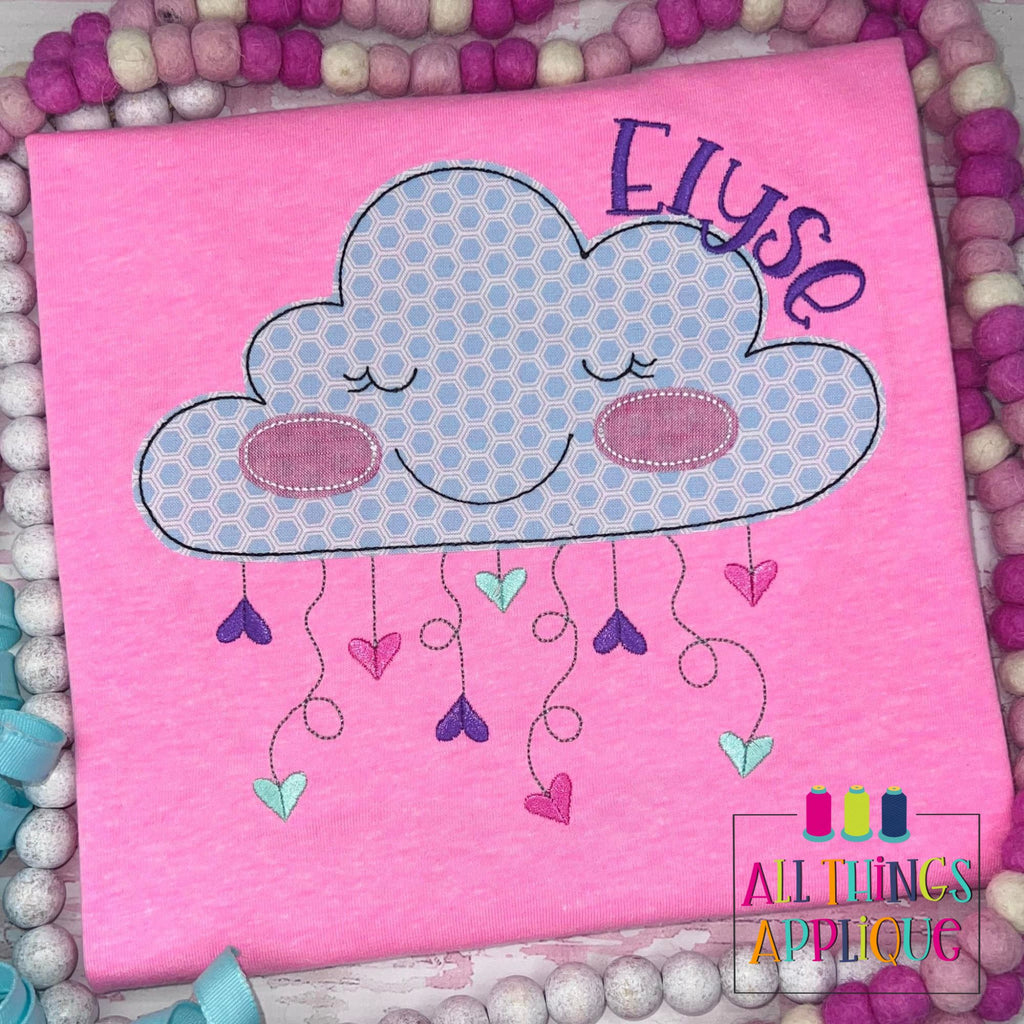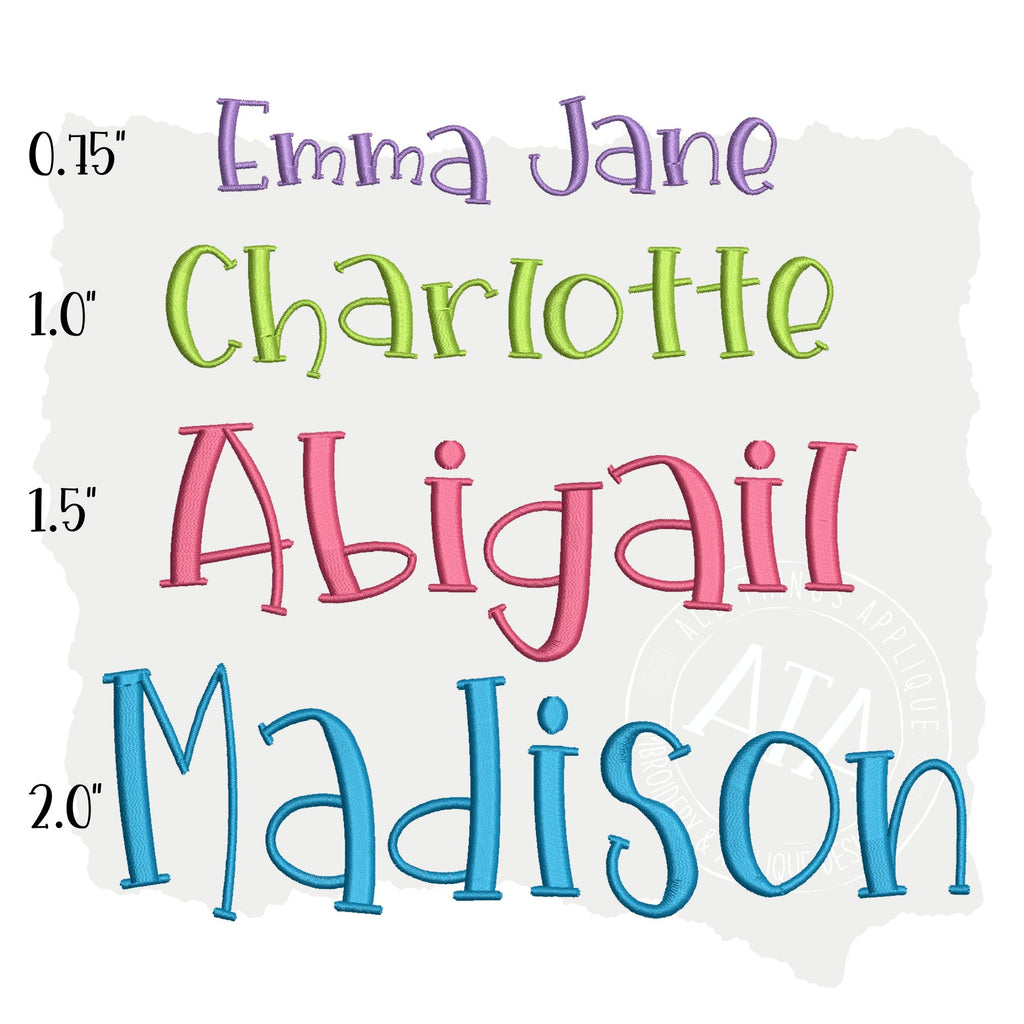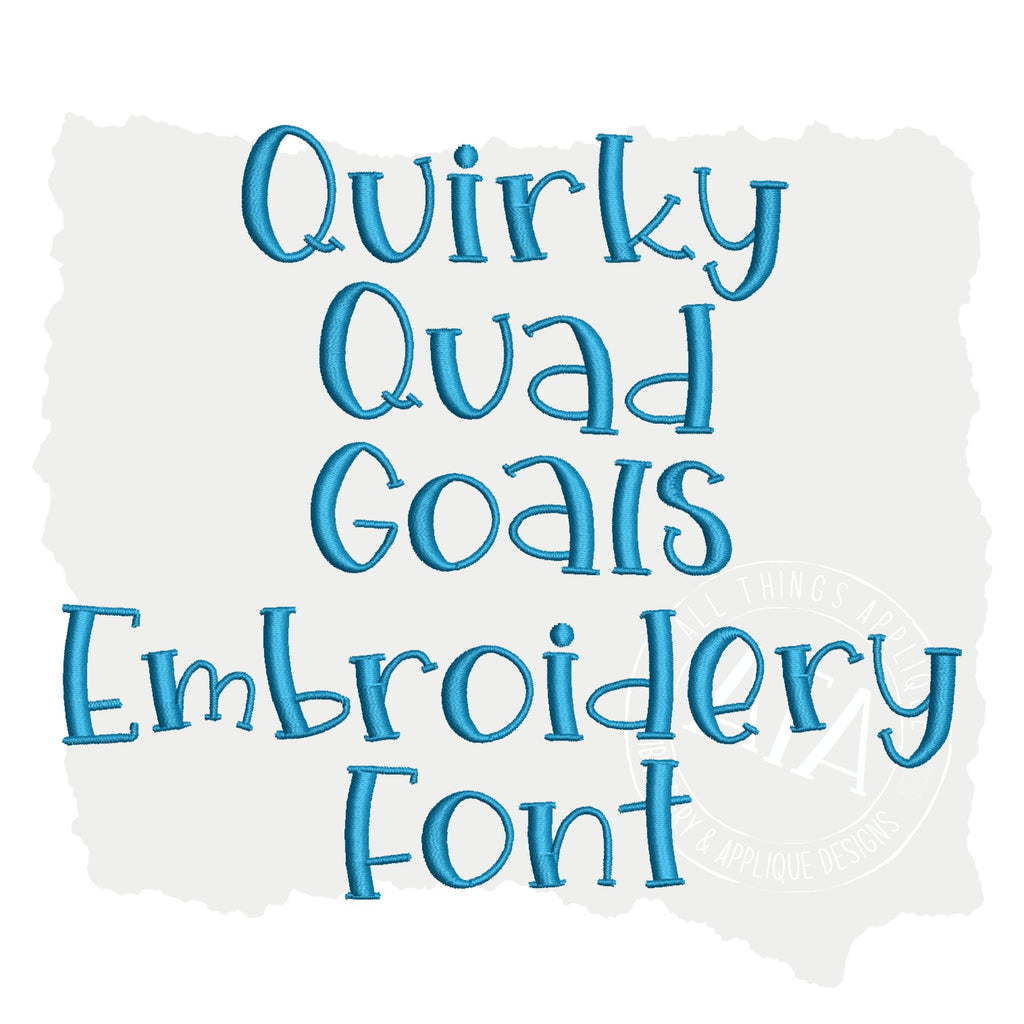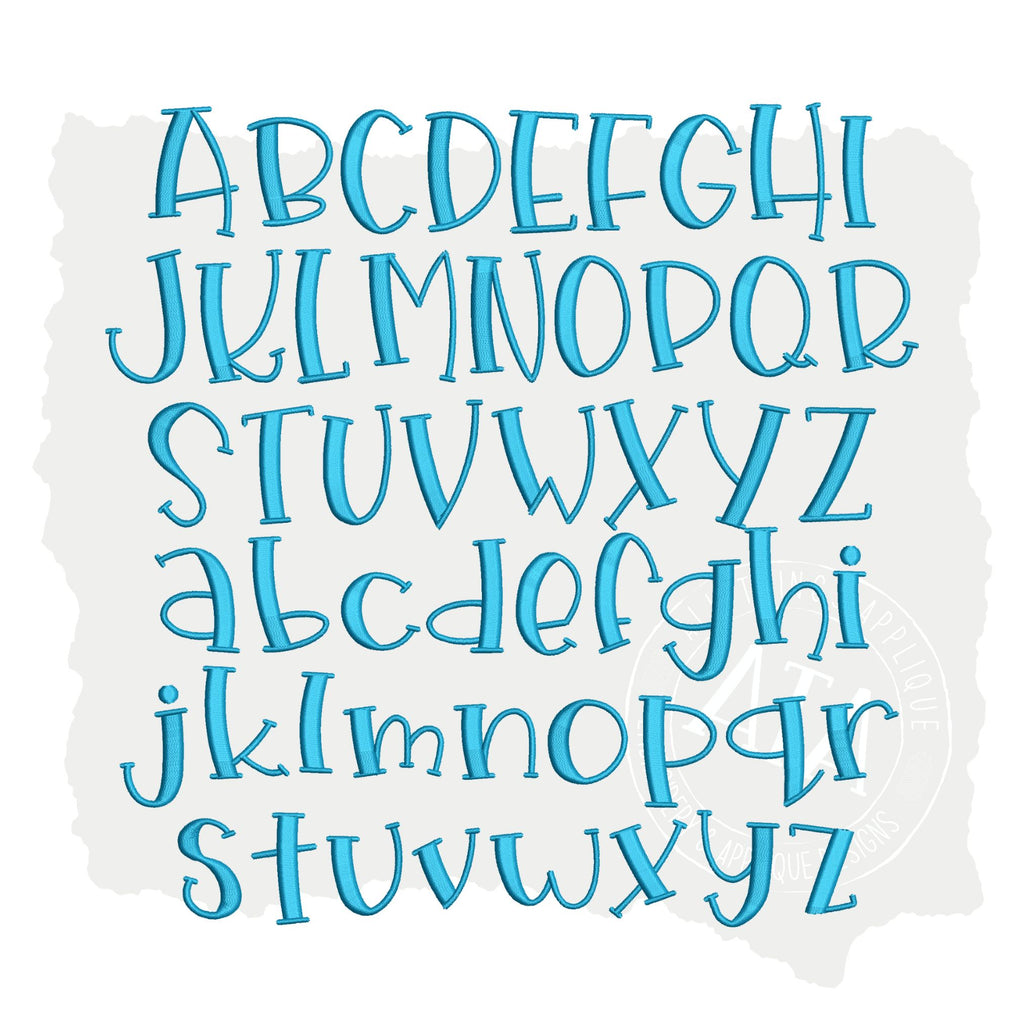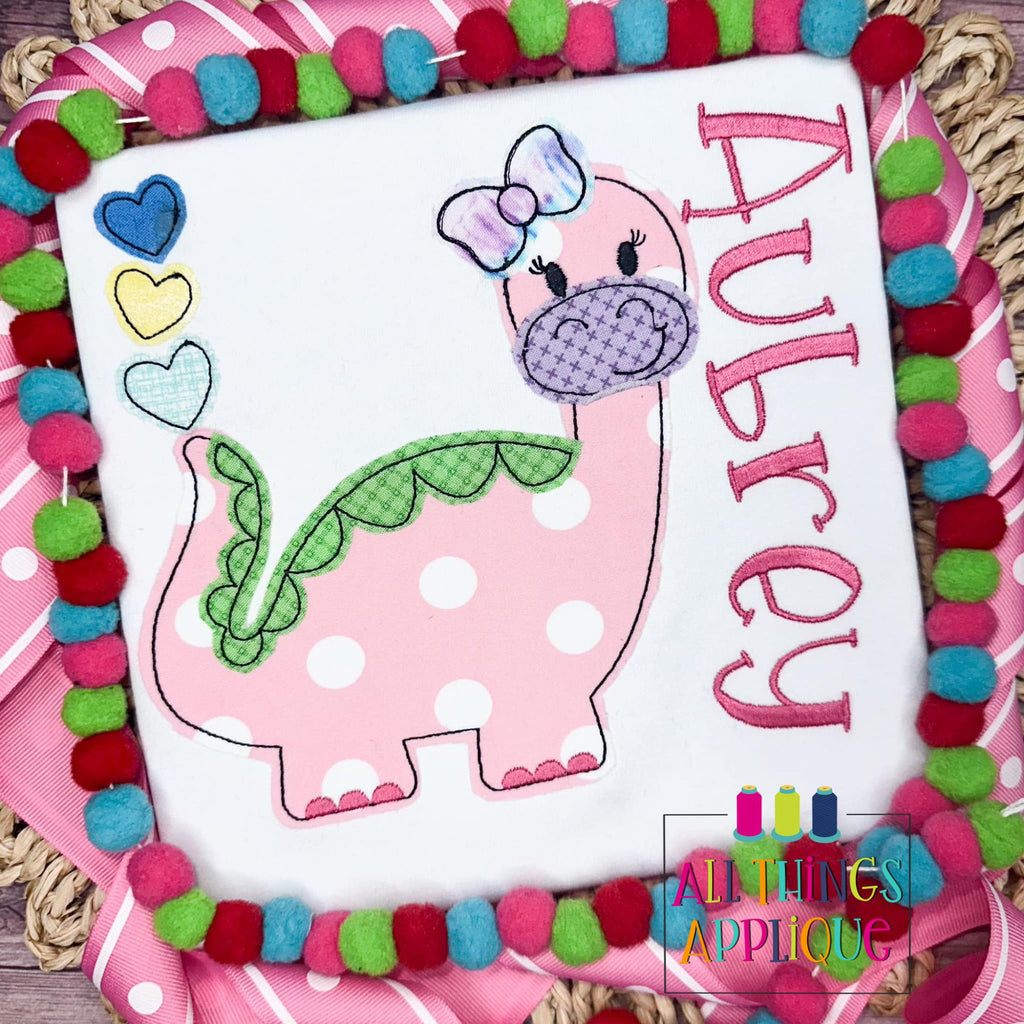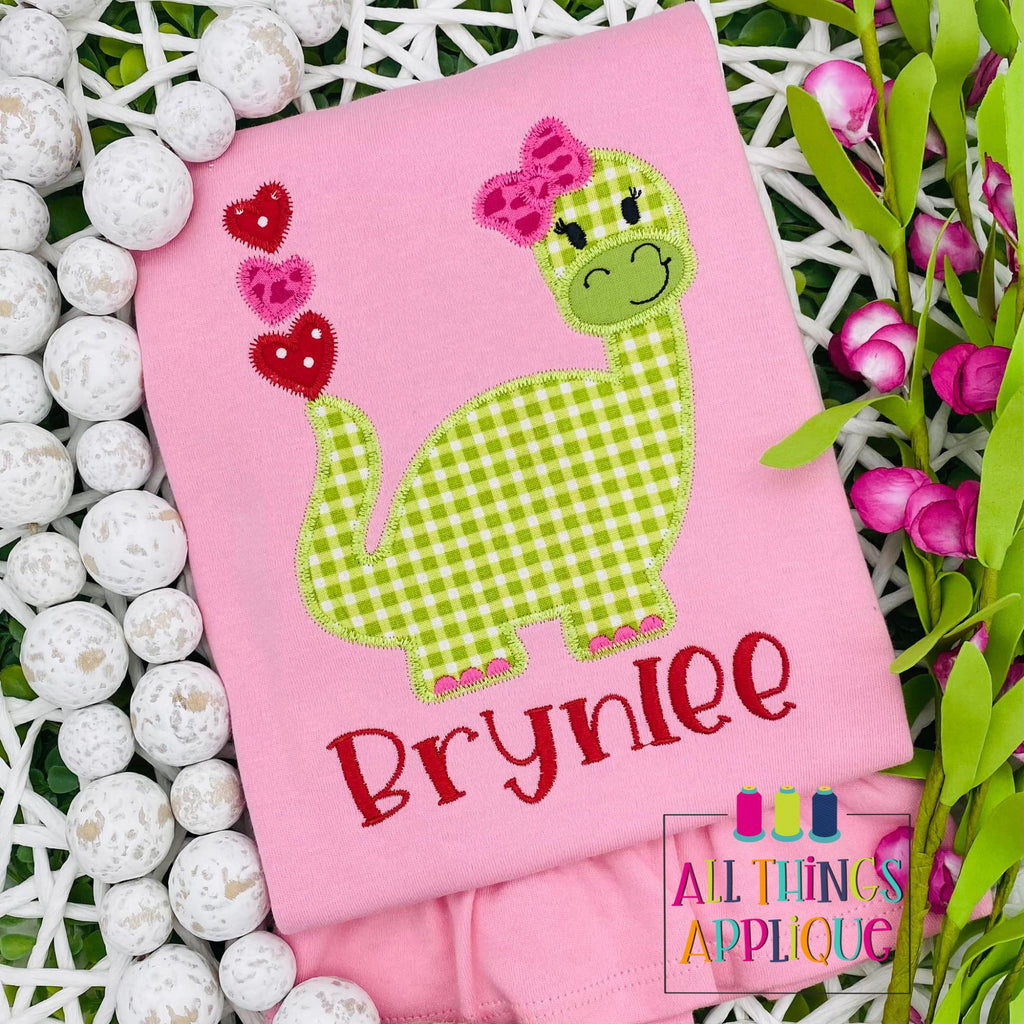
Quirky Quad Goals Embroidery Font
About the Quirky Quad Goals Embroidery Font Add a playful and quirky touch to your embroidery projects with the Quirky Quad Goals font. This fun font comes in four sizes, making it perfect for all your embroidery needs. The Quirky Quad Goals Embroidery Font is an Embroidery Font  created/digitized in 2024 by All Things Applique for use on your embroidery machine. This font includes the BX format which turns this font into a keyboard font.  Sizes included in Download   Capital Letter Size 0.75" 1.0" 1.5" 2.0"   Quality Assurance All of our designs are manually digitized and tested by an experienced team of professional embroiderers to ensure each design is of high quality and very easy to use. Designs are available immediately for download and are guaranteed/supported for a minimum of one year as well as a copy kept in your store profile for that amount of time as well.    Supported Formats PES HUS JEF SEW DST VIP VP3 EXP XXX BX ✓ ✓ ✓ ✓ ✓ ✓ ✓ ✓ ✓ ✓